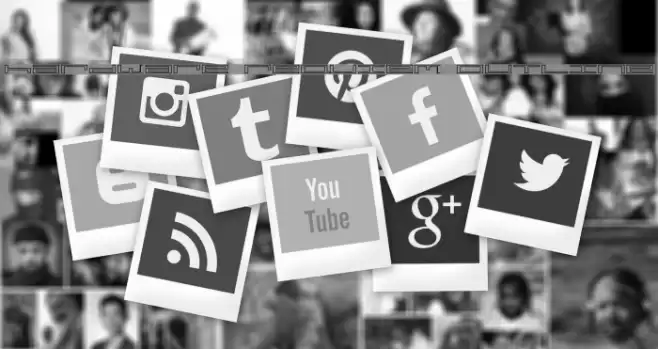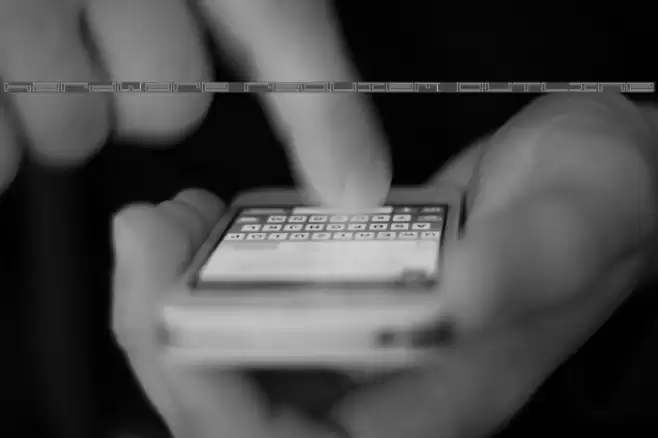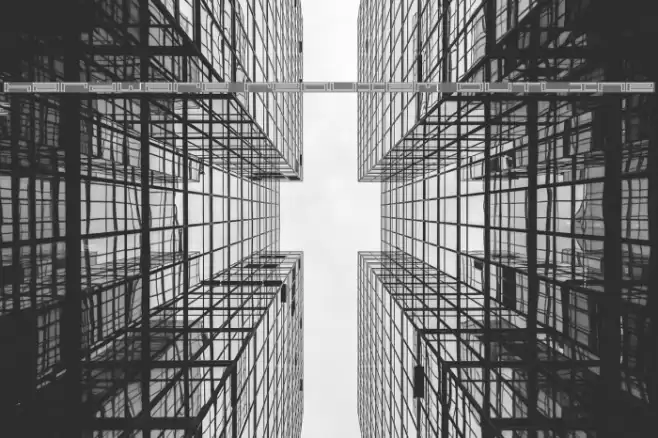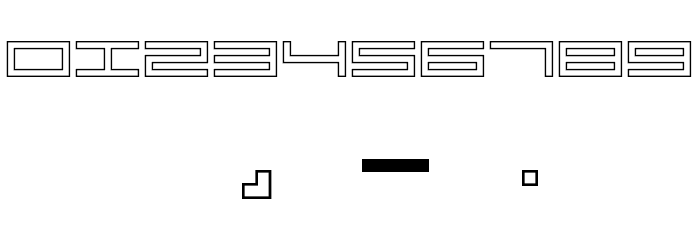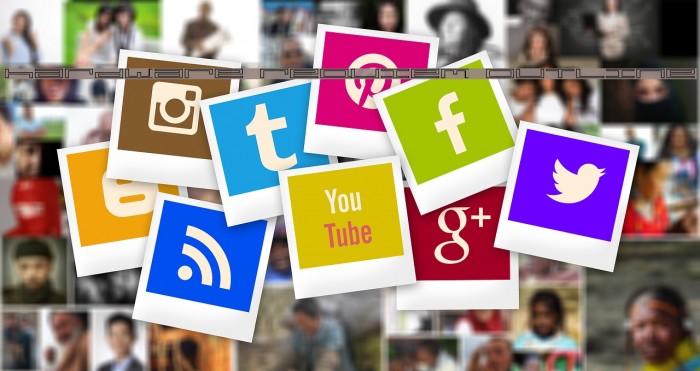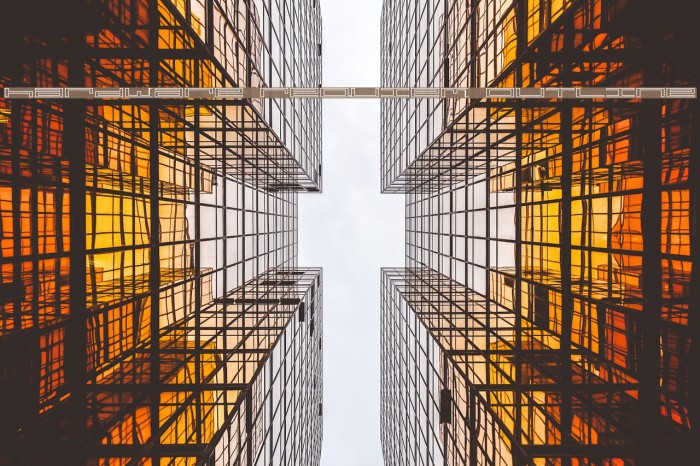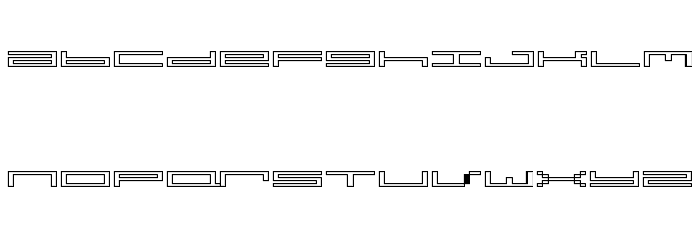
hardware requiem outline Font
hardware requiem outline Description
This font features a futuristic and geometric design, characterized by its outlined structure and angular forms. Each letter is crafted with precision, creating a sense of modernity and technological advancement. The uppercase and lowercase letters maintain a consistent style, with sharp edges and a uniform line weight that gives the font a sleek and streamlined appearance. The numerals and special characters are designed to match the overall aesthetic, making the font versatile for various applications. Its unique style makes it stand out, perfect for projects that require a modern and innovative look.
A futuristic, geometric outlined font with sharp, angular forms from Uncategorized fonts.
- Proposed Projects: Ideal for tech branding, sci-fi themed designs, digital interfaces, and modern advertising.
- Use Case: Logos, Headlines, Digital interfaces